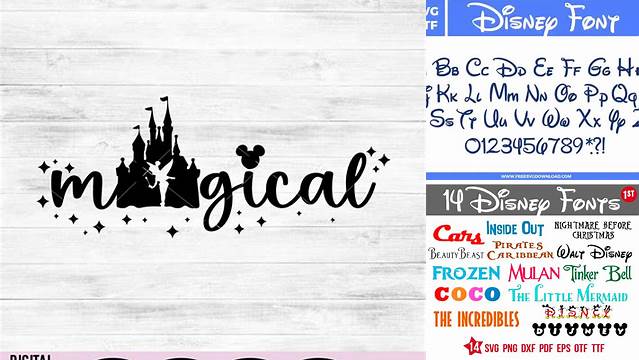
Disney Font SVG: Where To Find Magical Typography
Are you a Disney fanatic looking to sprinkle some fairy dust on your projects? Or maybe you're a designer aiming to capture the whimsical charm of Disney in your creations? Well, you've come to the right place! In this guide, we'll dive deep into the world of Disney fonts, specifically focusing on how to get them in SVG format. We'll explore why SVGs are awesome, where you can find these enchanting fonts, and how to use them to create magical designs. So, buckle up, guys, and let's embark on this font-tastic journey!
Why SVG Fonts Are the Real Magic
Let's kick things off by understanding why SVG (Scalable Vector Graphics) fonts are the bee's knees. Unlike traditional font formats like TTF or OTF, SVGs are based on vectors. What does that mean for you? It means your text will look crystal clear at any size! Whether you're creating a tiny logo or a massive banner, SVG fonts retain their sharpness and detail. No more pixelated or blurry letters – yay!
Here’s a breakdown of why SVG fonts are a game-changer:
- Scalability: As the name suggests, SVGs scale without losing quality. This is crucial for designs that need to be used across various media, from web to print.
- Editability: SVG fonts are essentially vector graphics, which means you can easily tweak and customize them in vector editing software like Adobe Illustrator or Inkscape. Want to change the color, add a gradient, or even reshape a letter? Go for it!
- Small File Size: Compared to raster images, SVGs are typically smaller in file size. This is a big win for web design, as smaller files mean faster loading times and a better user experience.
- Animation Potential: SVG fonts can be animated using CSS or JavaScript, opening up a whole new world of possibilities for dynamic and interactive designs. Imagine your Disney-inspired text sparkling and twirling across the screen – how cool is that?
So, now that we're all on board with the magic of SVG, let's talk about where to find those elusive Disney fonts.
Finding Your Fairy Tale Font: Where to Look
Now comes the fun part: hunting for the perfect Disney font in SVG format. Unfortunately, there isn't an official Disney font that's freely available for download. Disney fiercely protects its intellectual property, and the iconic Disney font is no exception. However, fear not! There are plenty of talented designers out there who have created fonts inspired by Disney's signature style. These fonts capture the essence of Disney's magic and can be used for personal projects.
Here are some of the best places to find Disney-inspired SVG fonts:
- Dafont: A popular resource for free fonts, Dafont has a dedicated category for cartoon and comic fonts, where you can find fonts inspired by Disney and other animated classics. Remember to check the license agreement for each font, as some may only be free for personal use.
When searching for Disney-inspired fonts, keep an eye out for keywords like "cartoon font," "whimsical font," "script font," and "fantasy font." These terms will help you narrow down your search and find fonts that match the Disney aesthetic.
Top Disney-Inspired Fonts: A Sneak Peek
To get your creative juices flowing, let's take a look at some popular Disney-inspired fonts that you might encounter in your search:
- Walt Disney Script: This font is perhaps the most iconic Disney-inspired font, closely resembling the signature script used in Disney logos and movie titles. It's elegant, flowing, and instantly recognizable.
- Mickey Mouse Font: A playful and fun font with rounded shapes and a cheerful vibe, perfect for projects aimed at children or those who love Mickey Mouse.
- Kingdom Hearts Font: Inspired by the popular video game series, this font has a bold and adventurous feel, with sharp angles and a touch of fantasy.
- Beauty and the Beast Font: A romantic and elegant script font, reminiscent of the classic Disney movie. It's perfect for invitations, wedding designs, and other projects that call for a touch of sophistication.
Can I edit an SVG font?
One of the most enchanting aspects of SVG fonts is their editability, offering a level of creative control that traditional font formats simply can't match. Because SVGs are vector-based, they're essentially collections of shapes rather than fixed pixel arrangements. This means you can open an SVG font in a vector graphics editor like Adobe Illustrator or Inkscape and manipulate individual letterforms to your heart's content. Want to tweak the curve of a letter, add a flourish, or reshape a character entirely? With SVG fonts, the possibilities are virtually limitless. This level of customization is invaluable for designers seeking to create truly unique and bespoke typography. You can adjust the thickness of strokes, add gradients or patterns, and even combine elements from different letters to craft entirely new glyphs. However, keep in mind that editing fonts requires a certain level of skill and understanding of typography. Overzealous modifications can sometimes lead to unintended consequences, so it's often best to start with subtle adjustments and gradually refine your design. But with a little practice and a dash of creativity, you can transform an SVG font into a typographic masterpiece that perfectly reflects your vision.